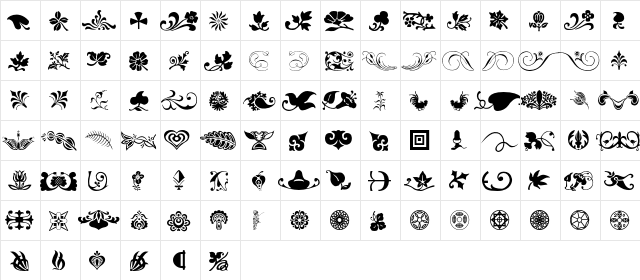
Alien Ornaments
Design Context for Alien Typeface
Alien is built around its visual character rather than neutral utility — its distinctive forms are designed to make an impression at display sizes.
Font Pairing: Pair with a clean neutral sans-serif for body copy to let Alien's character lead without overwhelming the composition.
Pro Tip: Use Alien exclusively at display sizes — it was designed to be seen, not read at length. Let a neutral companion handle body copy.